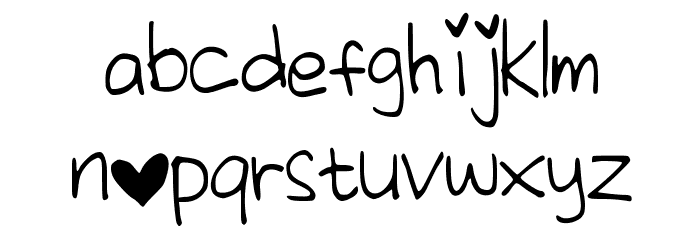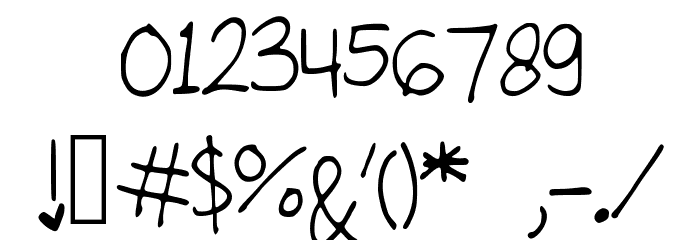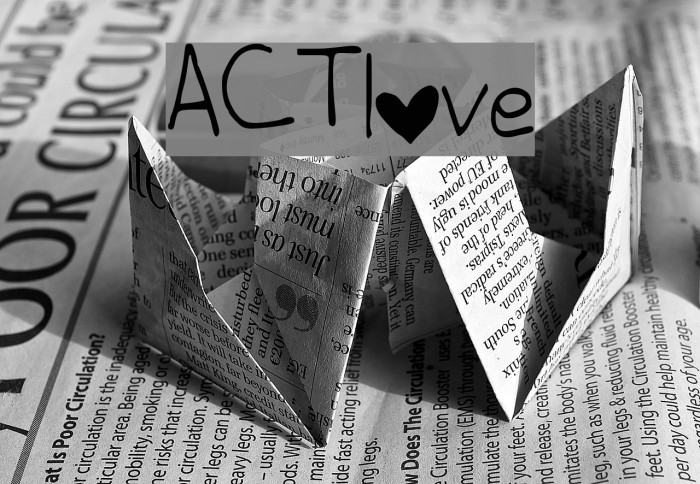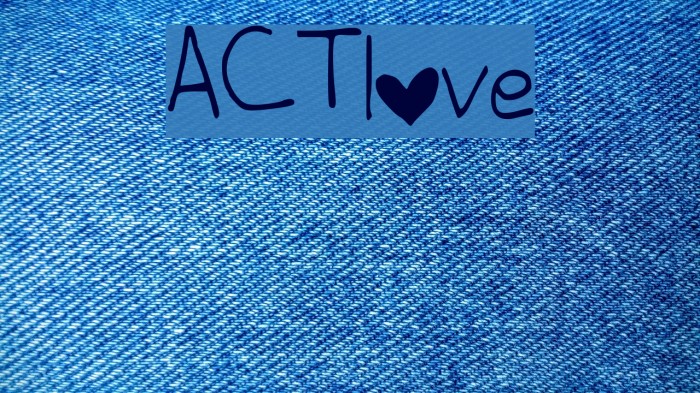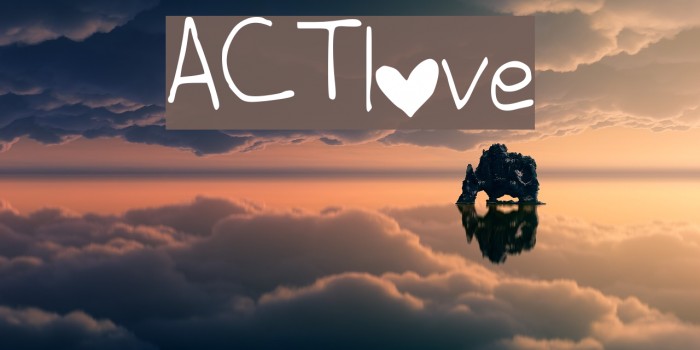
ACTlove Font
This playful and whimsical font features a handwritten style with unique heart-shaped embellishments on certain letters, such as 'i' and 'j', adding a touch of charm and personality. The uppercase and lowercase letters are slightly irregular, giving it an informal and friendly appearance. The numbers and special characters maintain the same playful aesthetic, making it suitable for creative and lighthearted projects. The font's overall style is casual and fun, perfect for designs that aim to convey warmth and approachability.
A playful, handwritten font with heart embellishments for a whimsical touch.
- Proposed Projects: Ideal for greeting cards, children's books, playful branding, and social media graphics.
- Use Case: Logos, Headlines, Informal Text